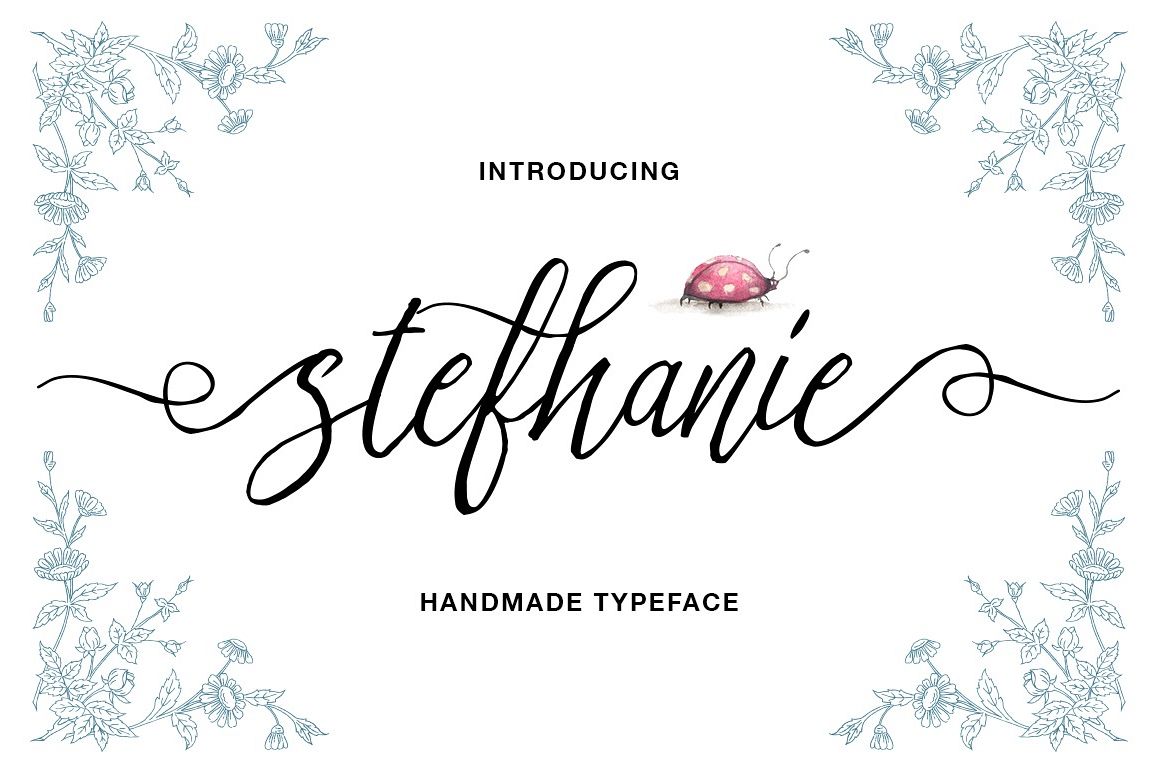
Stefhanie Typeface
Stefhanie.
Introducing Stefhanie Typeface
Stefhanie Typeface is a beautiful handmade script give the natural looks. Alternate character contain with opentype features. Stylistic alternates, Ligature and more. You can access all those alternate characters by using OpenType savvy programs such as Adobe Illustrator and Adobe InDesign.
Great for Apparel Brand, any greeting cards, book cover, Painting design style, or any design that needs natural and personal touch. Mix and match the alternate characters to add an attractive message to your design.